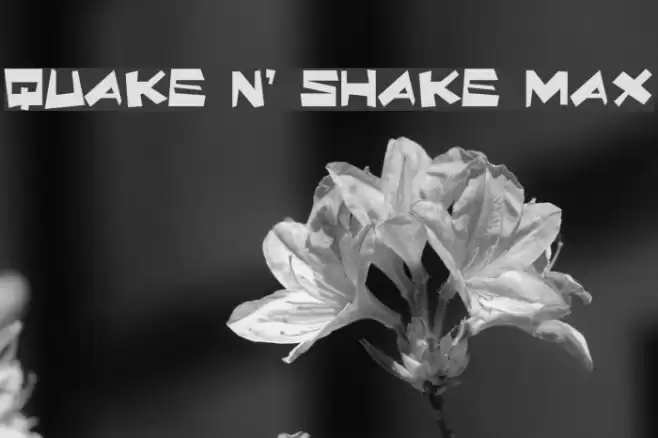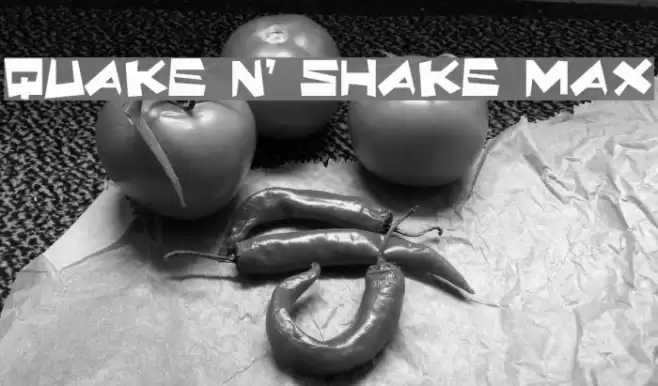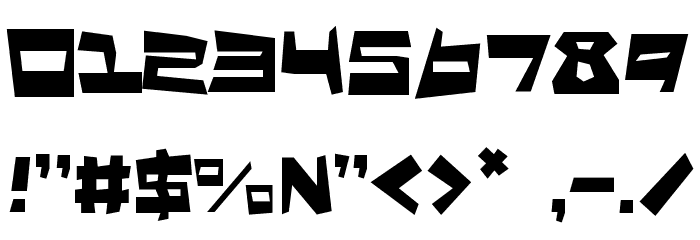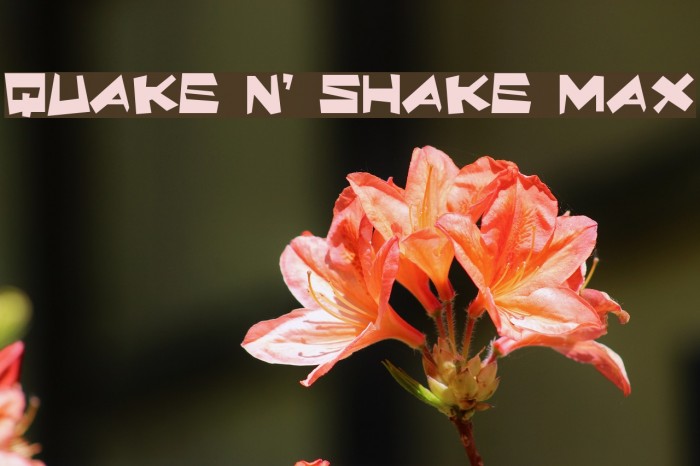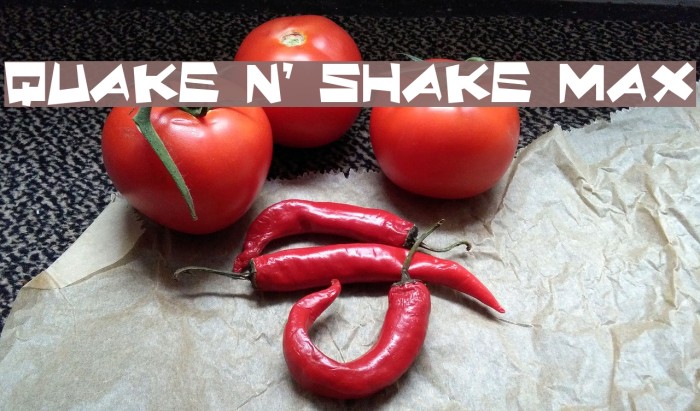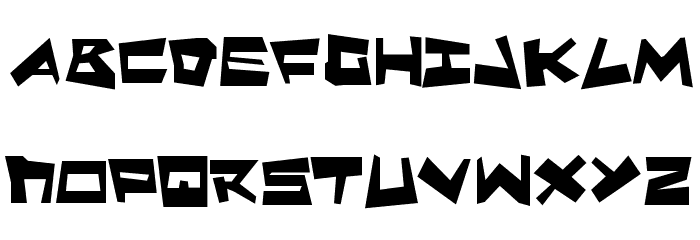
Quake & Shake Max Font
Quake & Shake Max Description
This font features a bold, angular design with a dynamic and energetic feel. The characters are sharply cut, giving an impression of movement and intensity, reminiscent of seismic activity. Each letter is uniquely styled with irregular edges and varying thickness, creating a sense of disruption and chaos. The uppercase and lowercase letters maintain a consistent style, while the numbers and special characters follow the same bold and jagged aesthetic. This font is highly distinctive and eye-catching, making it suitable for projects that require a strong visual impact.
A bold, angular font with a dynamic and energetic style.
- Proposed Projects: Ideal for use in posters, video game titles, action-themed branding, and any project requiring a striking and bold typeface.
- Overall Style: Modern, Energetic